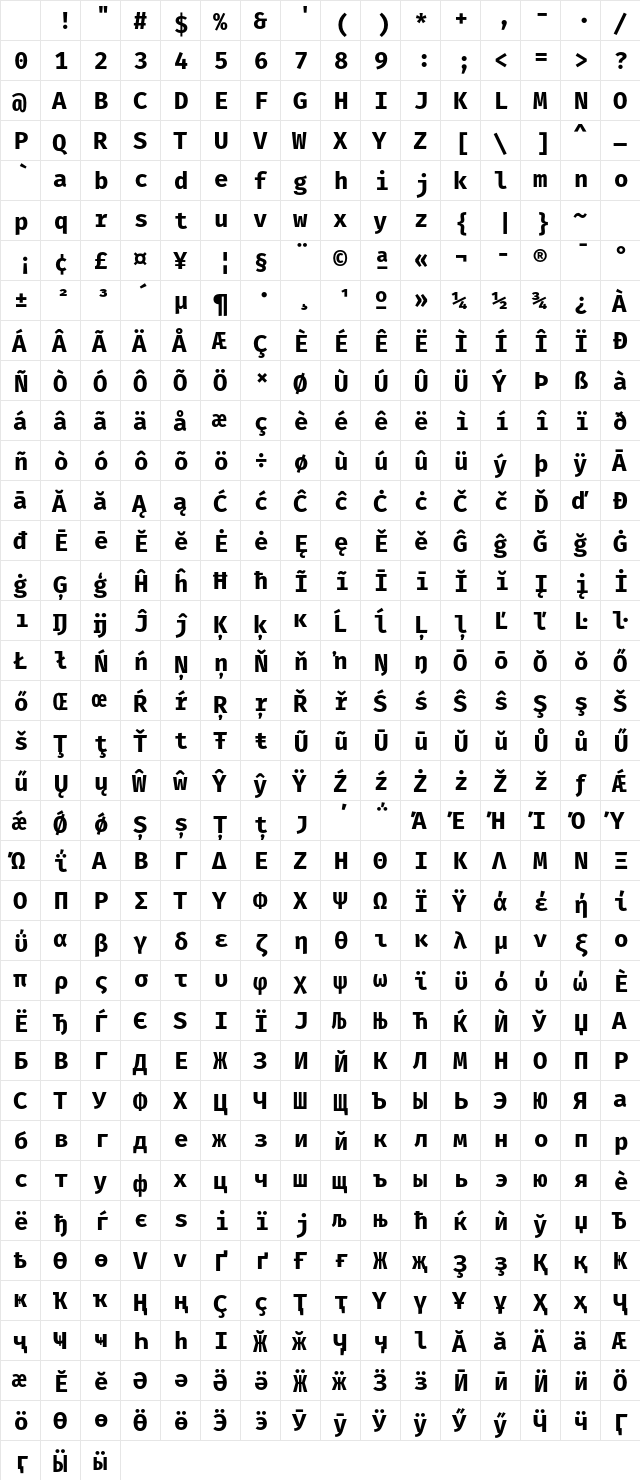
Complete FiraMono Nerd Font Bold glyph index. Displaying only characters natively supported by FiraMono Nerd Font Bold font.
FiraMono Nerd Font uses fixed-width spacing throughout, giving it the structured, systematic character associated with coding environments and technical documentation. Its bold stroke weight gives it real presence on the page.
Pro Tip: Use FiraMono Nerd Font with slightly increased line-height for extended reading - fixed-width spacing can feel dense in longer passages without extra breathing room.